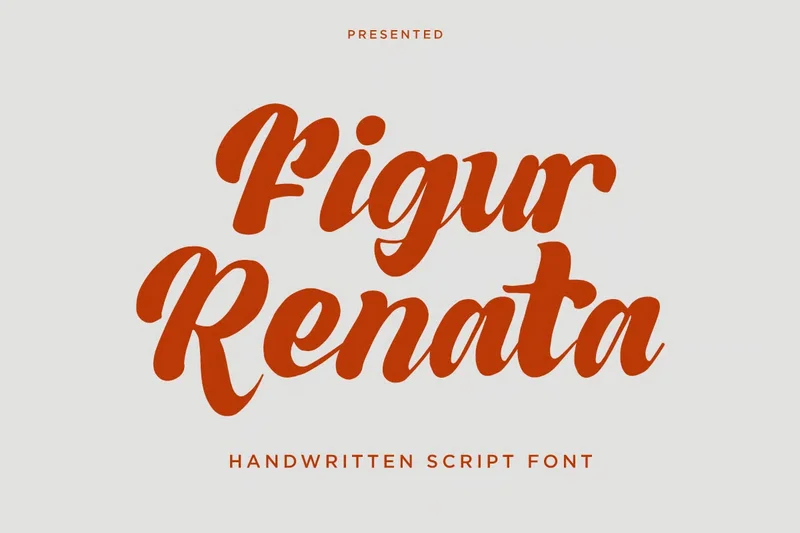
Figur Renata – Handwritten Script Font
Figur Renata is a handwritten script font with nostalgic typeface with a vintage charm and modern versatility, perfect for branding, posters, apparel, and retro-inspired designs. Its smooth curves and strong letterforms bring a warm, handcrafted feel while maintaining a dynamic, expressive look. Ideal for projects that need a mix of confidence and personality.